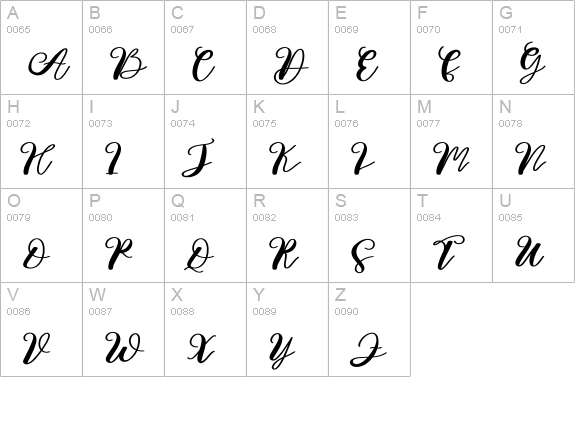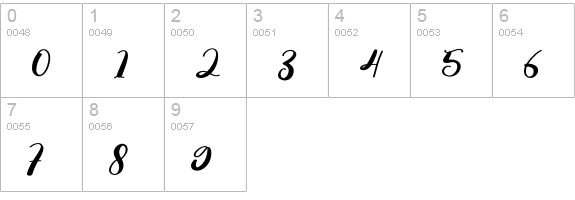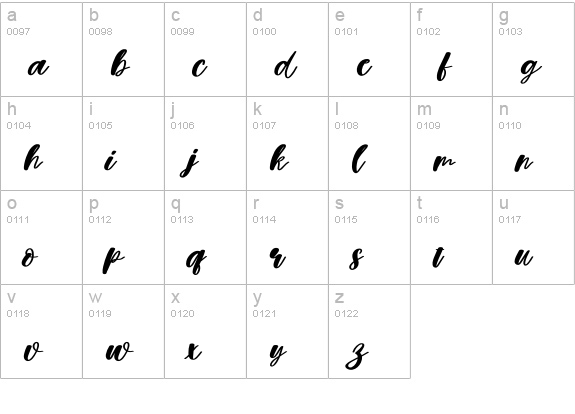
Moom Font Details
Moom is a free for personal use font in the Script > Handwritten category, designed by scratchones. It has been downloaded 7 times and is available for Windows, Mac and Linux.
Moom font is a stylish and modern typeface that exudes elegance and sophistication. Its sleek lines and clean design make it perfect for a wide range of design projects, from branding to editorial layouts. The versatility of Moom font allows it to be used in both digital and print applications, making it a valuable addition to any designer's toolkit.